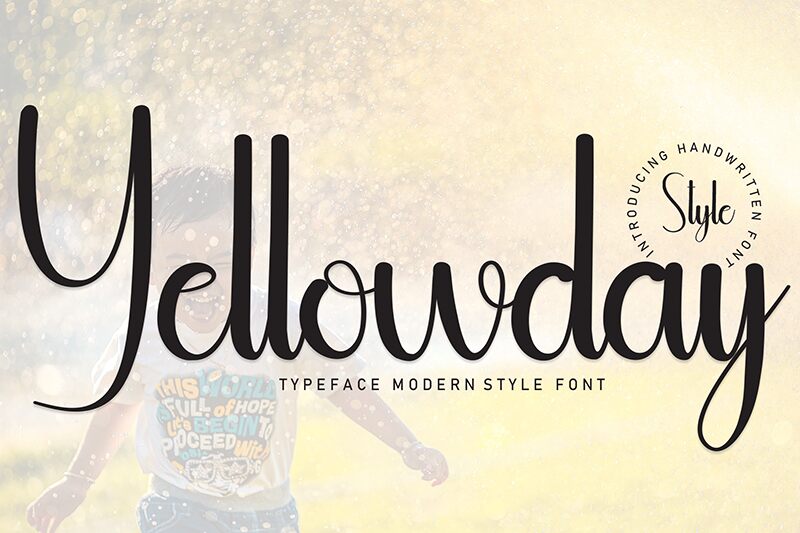
Yellowday
Yellowday font by Andi Moz is a free handwritten font created with ink and a brush. Charming yet simple, the letters display an approachable sophisticated modern feel as they appear on all possible surfaces. Each letter keeps an equal balance by sticking to a straight line, however, the (up/down) curves give it an elegant fluid flow.